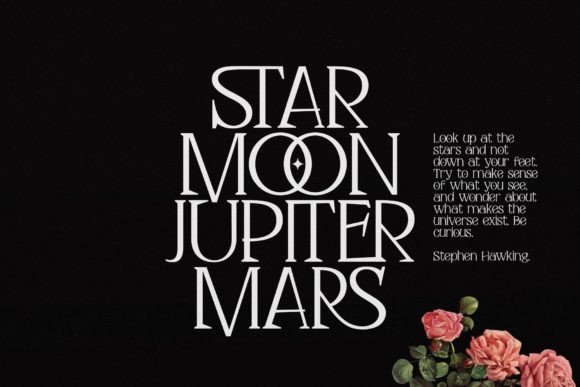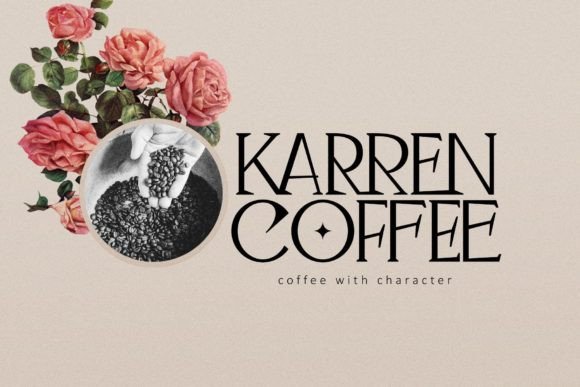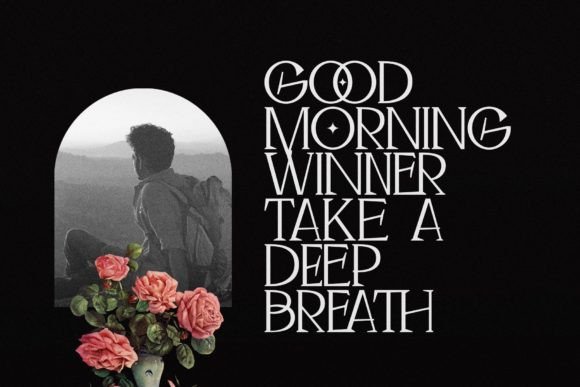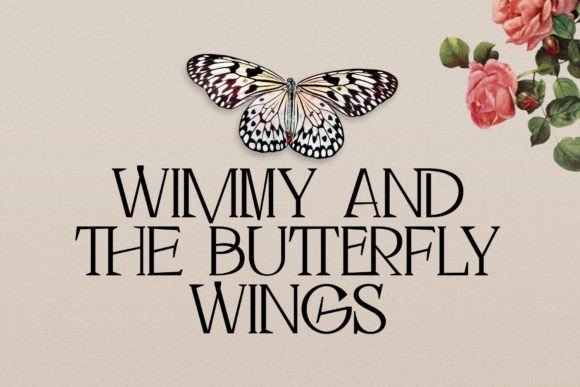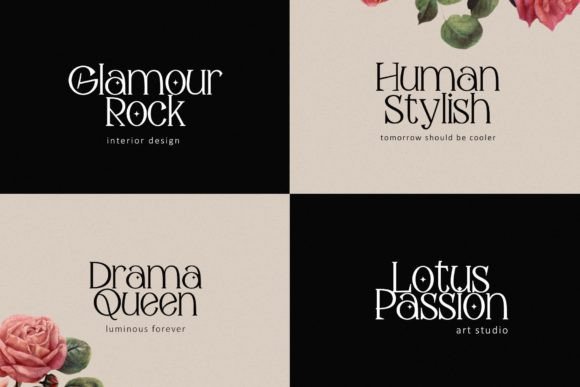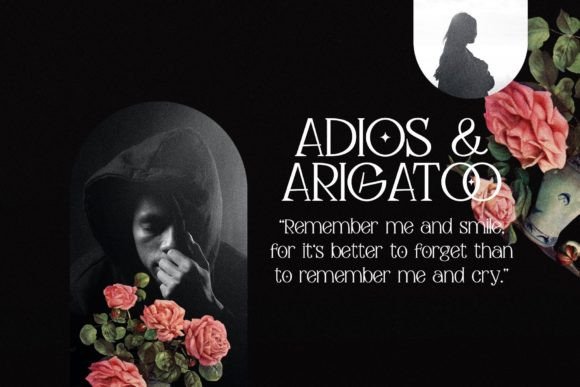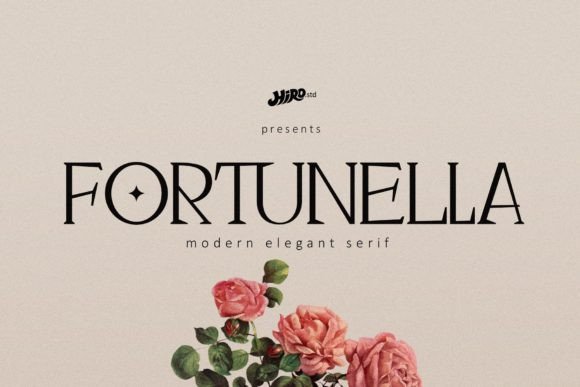
Introducing Fortunella Font: The Epitome of Modern Elegance
In the realm of typography, fonts play a pivotal role in conveying messages, evoking emotions, and enhancing the aesthetic appeal of designs. Among the myriad of fonts available, Fortunella stands out as a beacon of modernity and elegance. This article delves into the characteristics, inspirations, and benefits of using Fortunella Font, a serif font that is redefining the landscape of typography.
Unveiling Fortunella: A Modern and Elegant Serif Font
Fortunella Font is a masterpiece of modern typography, boasting a sleek and sophisticated design that exudes luxury and exclusivity. Its elegant and stylish appearance makes it an ideal choice for designers and crafters seeking to elevate their projects. Whether you’re working on a branding campaign, a website, or a crafting project, Fortunella promises to add a touch of refinement and class.
Inspiration from the Modern Era and Simple Lifestyles
The inspiration behind Fortunella Font stems from the modern era and the simplicity of contemporary lifestyles. In an age where minimalism and clean lines are celebrated, Fortunella embodies these principles through its uncluttered and straightforward design. This font is not just about aesthetics; it’s about creating a connection with the audience through clarity and elegance.
One of the standout features of Fortunella Font is its PUA (Private Use Area) encoding. This encoding allows users to access all the glyphs and swashes with ease, providing a wide range of creative possibilities. PUA encoding ensures that designers can explore various typographic expressions without the constraints of limited character sets. This feature makes Fortunella incredibly versatile and user-friendly, catering to the needs of professional designers and hobbyists alike.
Key Features of Fortunella Font
• Elegant and Luxurious Design: Fortunella’s design is synonymous with elegance and luxury, making it perfect for high-end projects.
• Modern and Stylish: Its modern aesthetic ensures that your designs are contemporary and appealing.
• Easy to Use: Despite its sophisticated look, Fortunella is very easy to use, suitable for both beginners and experienced designers.
• Exclusive: Fortunella’s unique design elements make it an exclusive choice for projects that demand something special.
• PUA Encoded: Enjoy effortless access to glyphs and swashes, enhancing your design flexibility.
Applications of Fortunella Font
Fortunella’s versatility makes it suitable for a wide array of applications. Here are some of the areas where Fortunella Font can make a significant impact:
• Branding and Logos: Create memorable and sophisticated brand identities with Fortunella.
• Web Design: Enhance your website’s typography with a modern and elegant serif font.
• Stationery and Print Design: Elevate your business cards, letterheads, and brochures with Fortunella’s luxurious feel.
• Crafting Projects: Whether you’re creating digital crafts or physical products, Fortunella adds a touch of elegance.
Fortunella Font is a game-changer in the world of typography, offering a perfect blend of modernity, elegance, and usability. Its inspiration from the simplicity of modern lifestyles, coupled with PUA encoding for easy access to glyphs and swashes, makes it an invaluable asset for designers and crafters. Whether you’re aiming to create luxurious branding, stylish websites, or exclusive crafting projects, Fortunella Font is your gateway to achieving typographic excellence.
Embrace the elegance and versatility of Fortunella Font in your next project. Experience how this modern and elegant serif font can transform your designs, making them more sophisticated, appealing, and memorable.